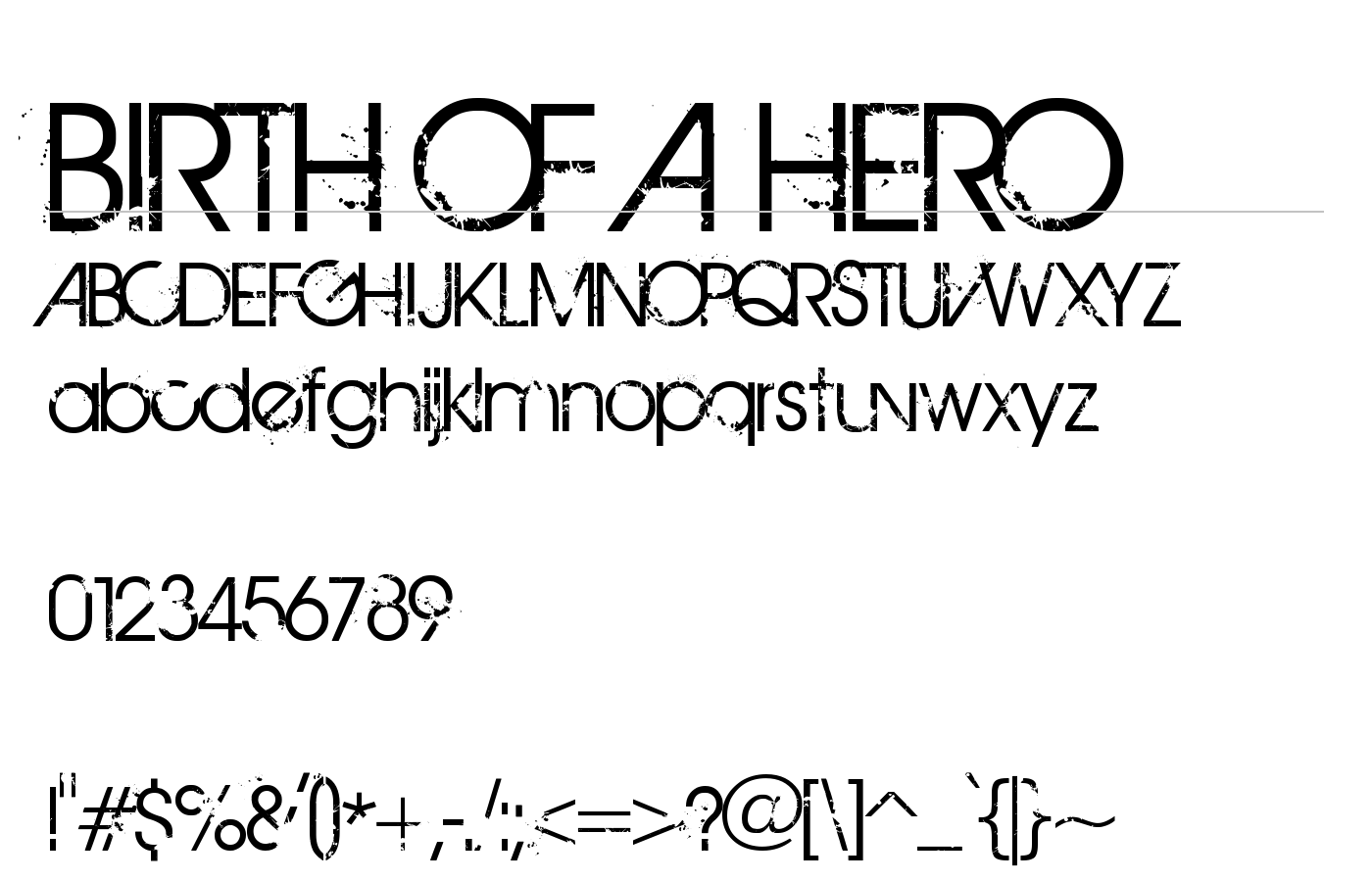
BIRTH OF A HERO is a modern, sans serif typeface with a tall, condensed structure and a distressed, grunge texture that adds a rugged, urban edge. Its clean geometric shapes combined with the worn, imperfect surface give it a bold, impactful personality perfect for dynamic, edgy designs. This font works well for posters, logos, and branding that aim to convey strength, rebellion, and contemporary style.
BIRTH OF A HERO Font